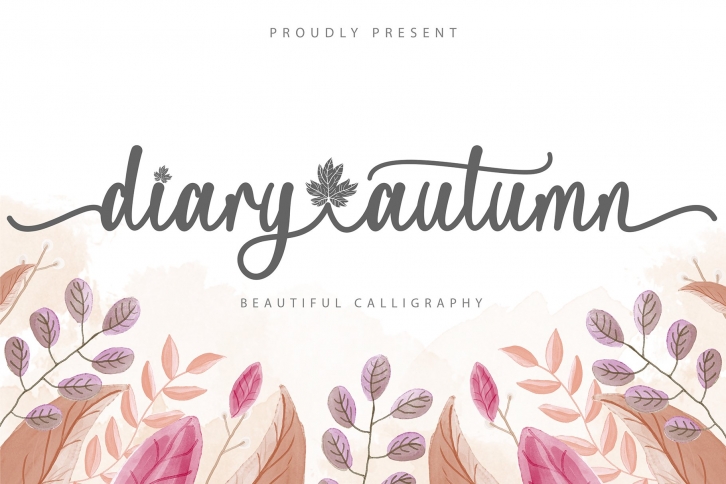
Diary Autumn FONT Download
Diary Autumn is a gorgeous font that was realeased on August 21, 2021. The font can be used in many style contexts and design environments. Perfect for invitations, magazines, websites, logos, and more! It was designed by yogaletter6 and the file size is 12.51 MB. Thanks for checking out this font!